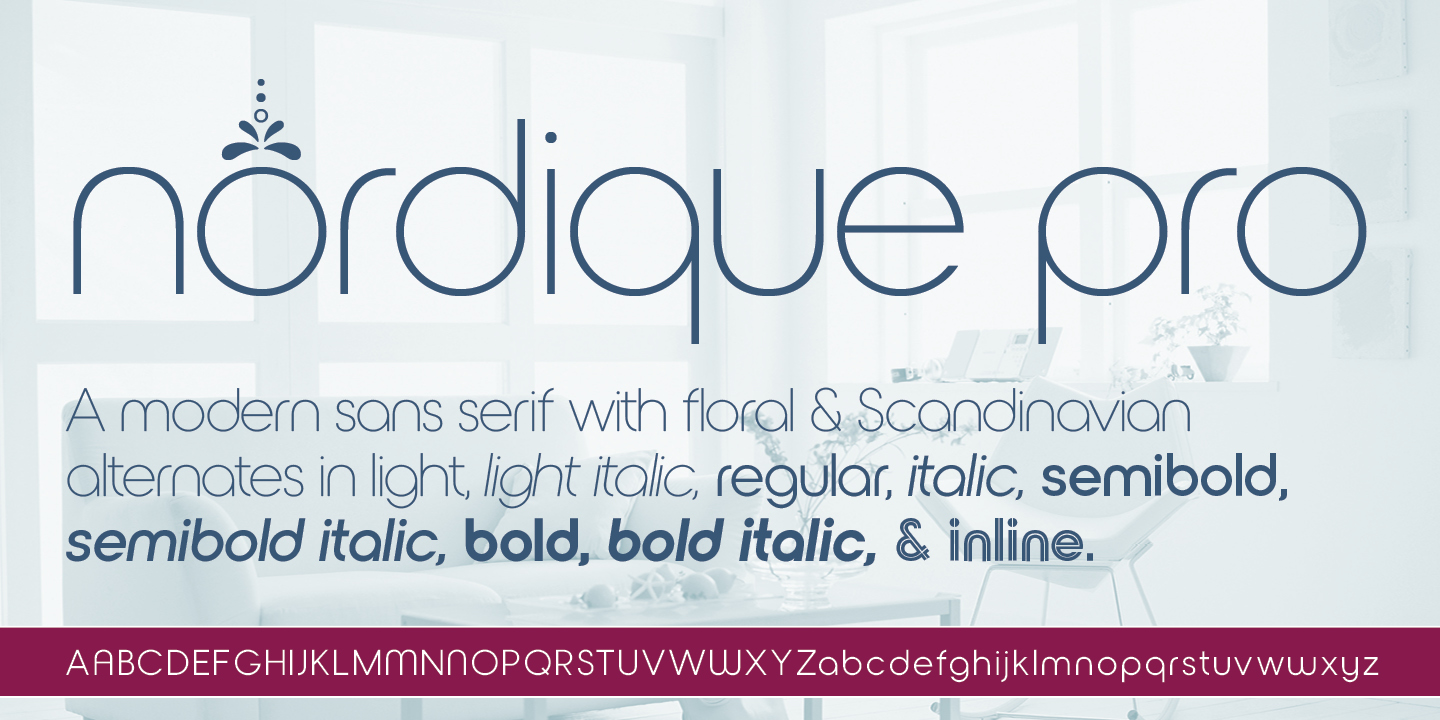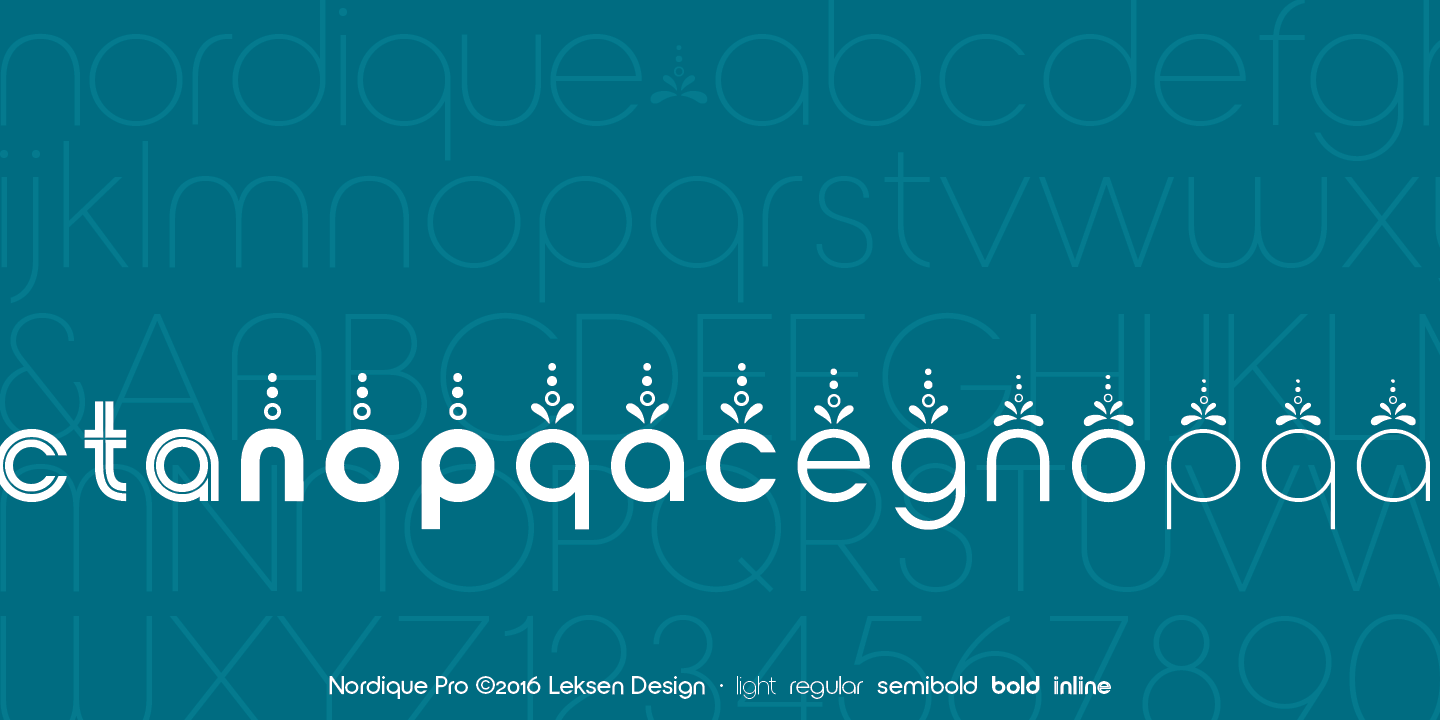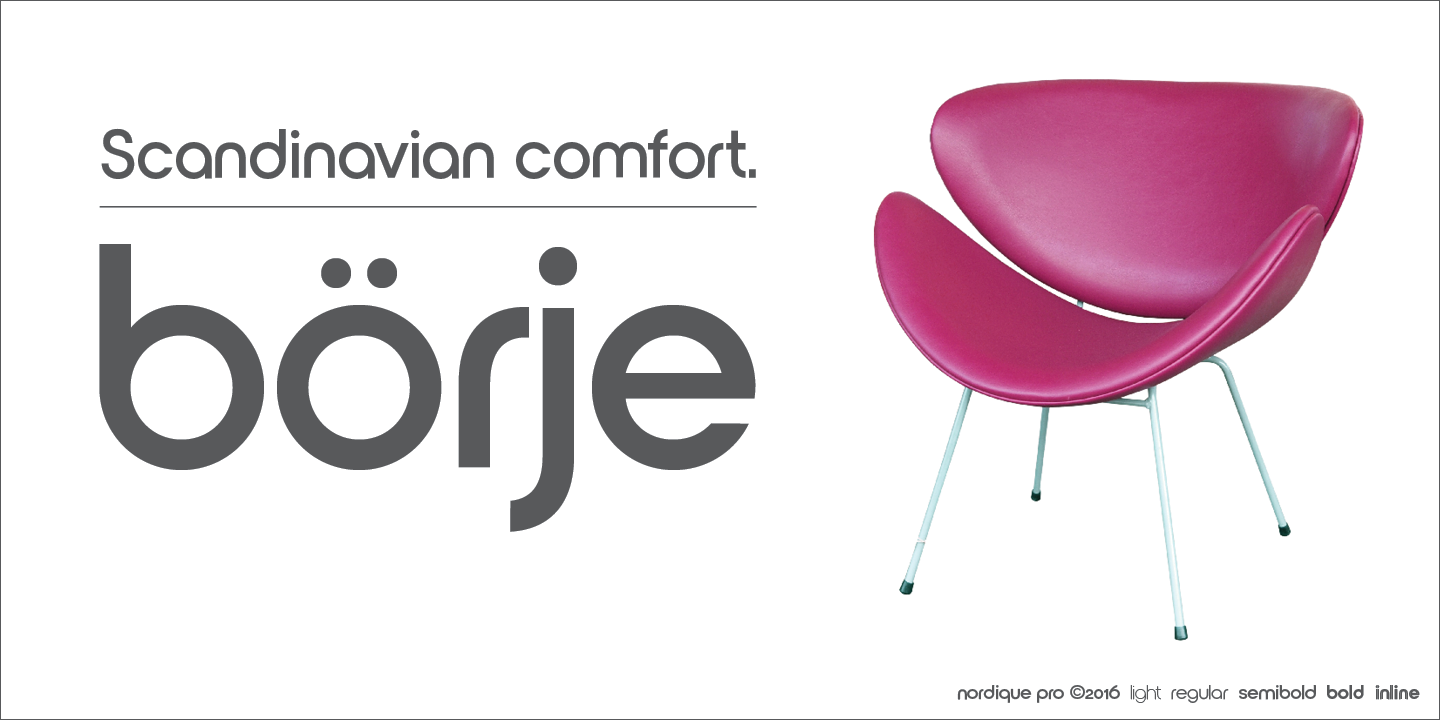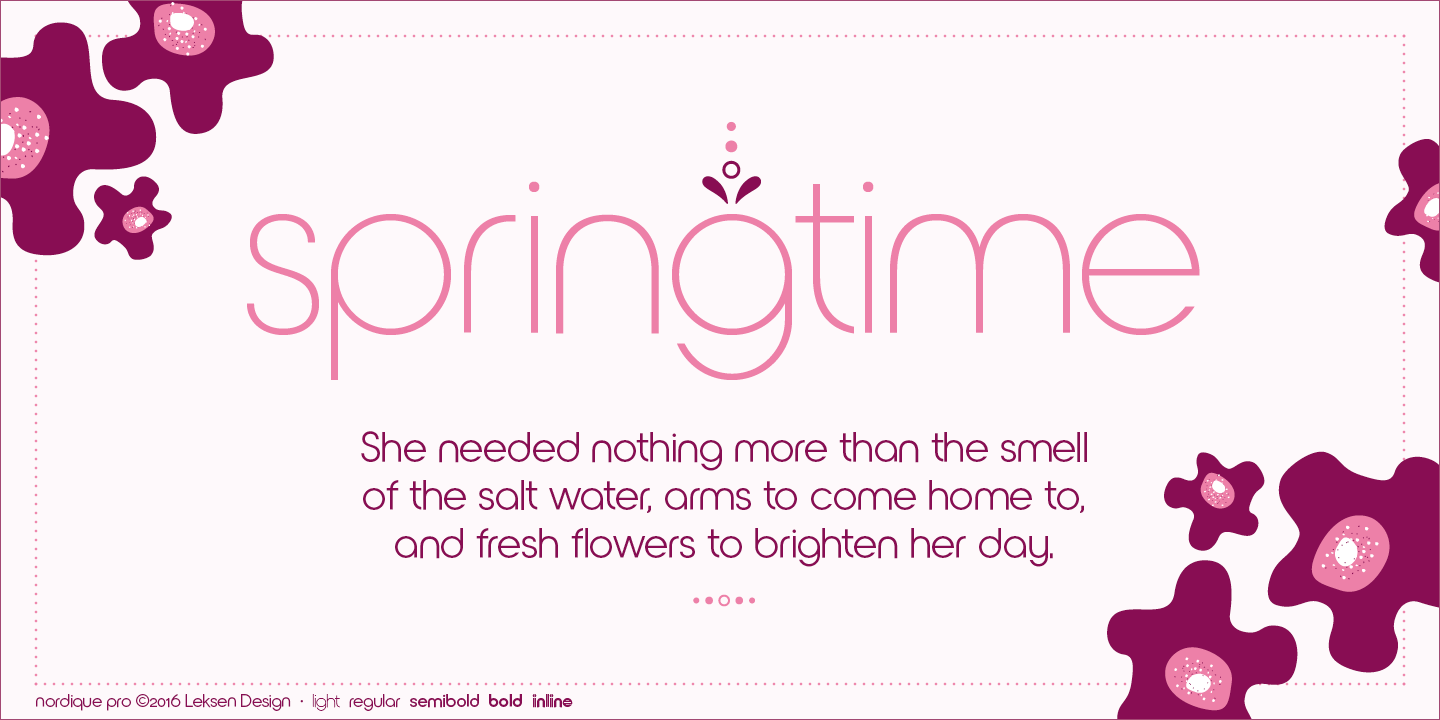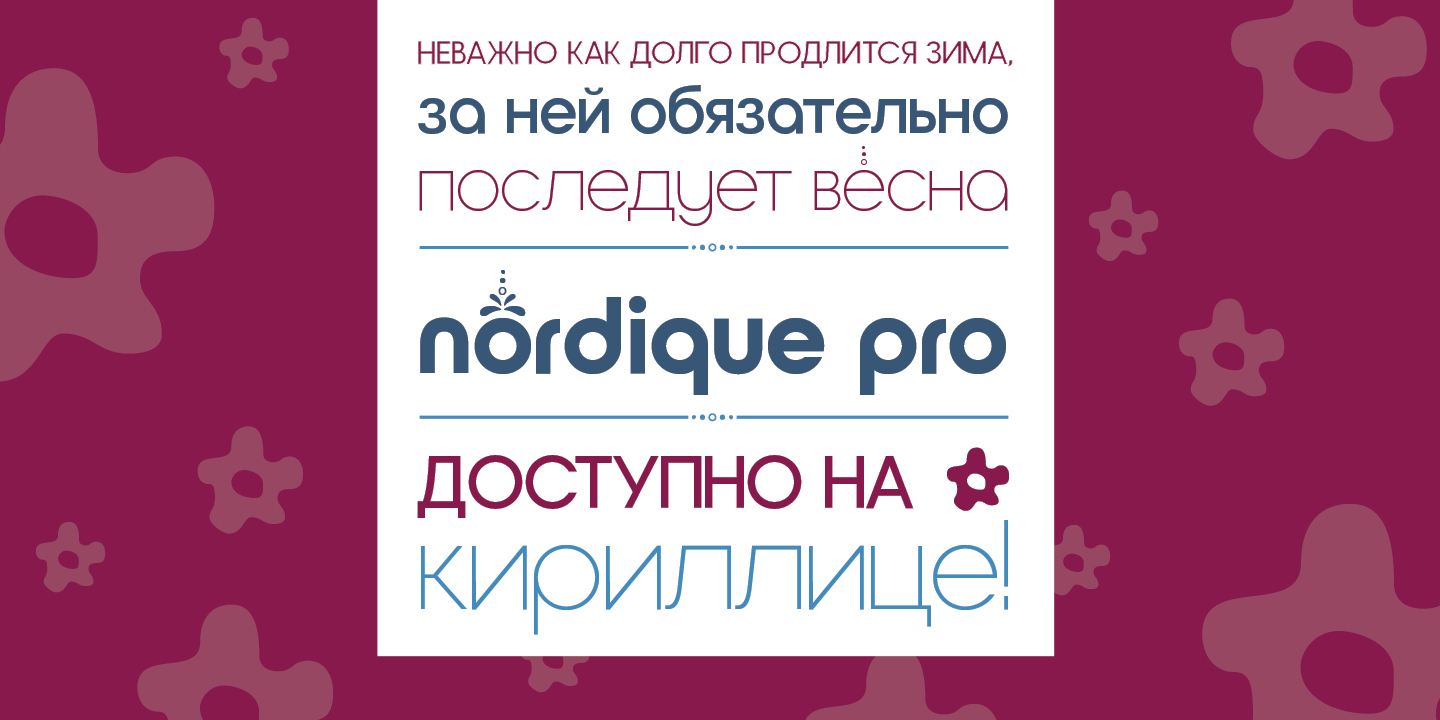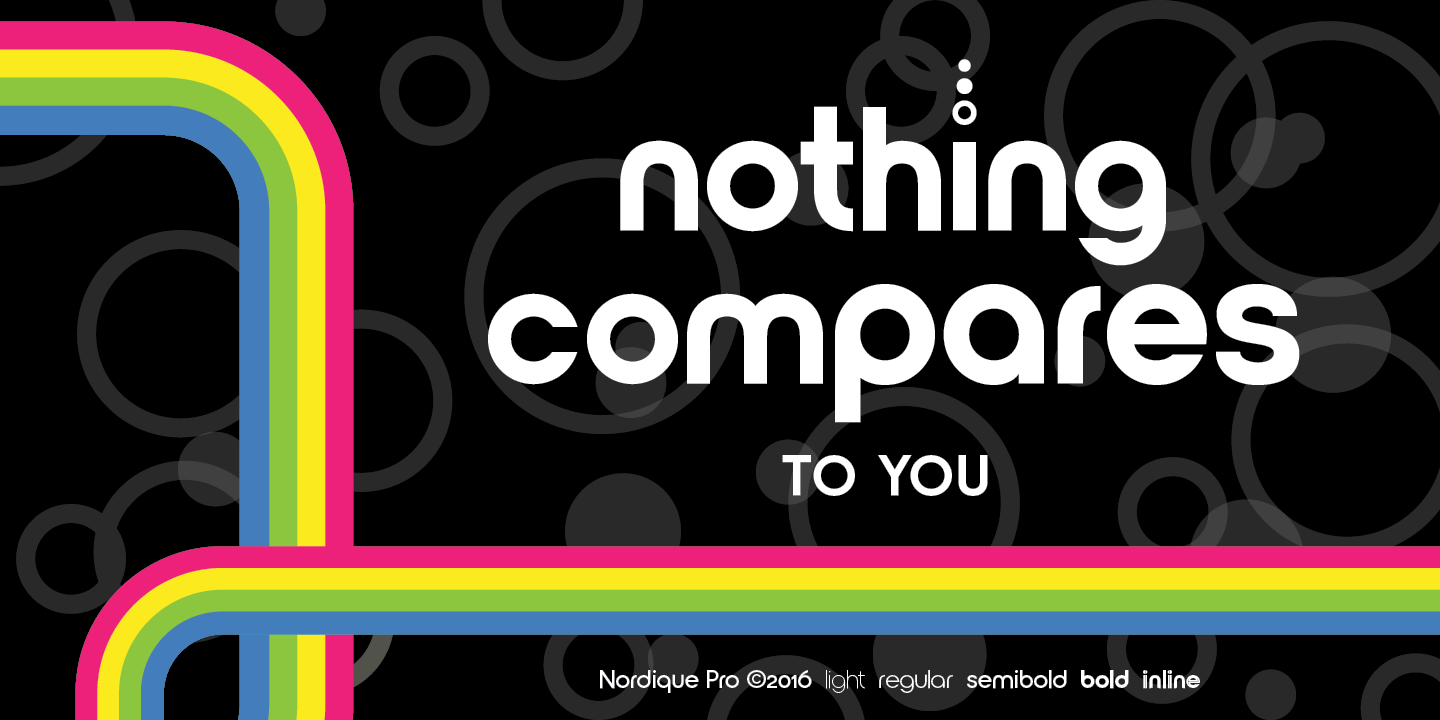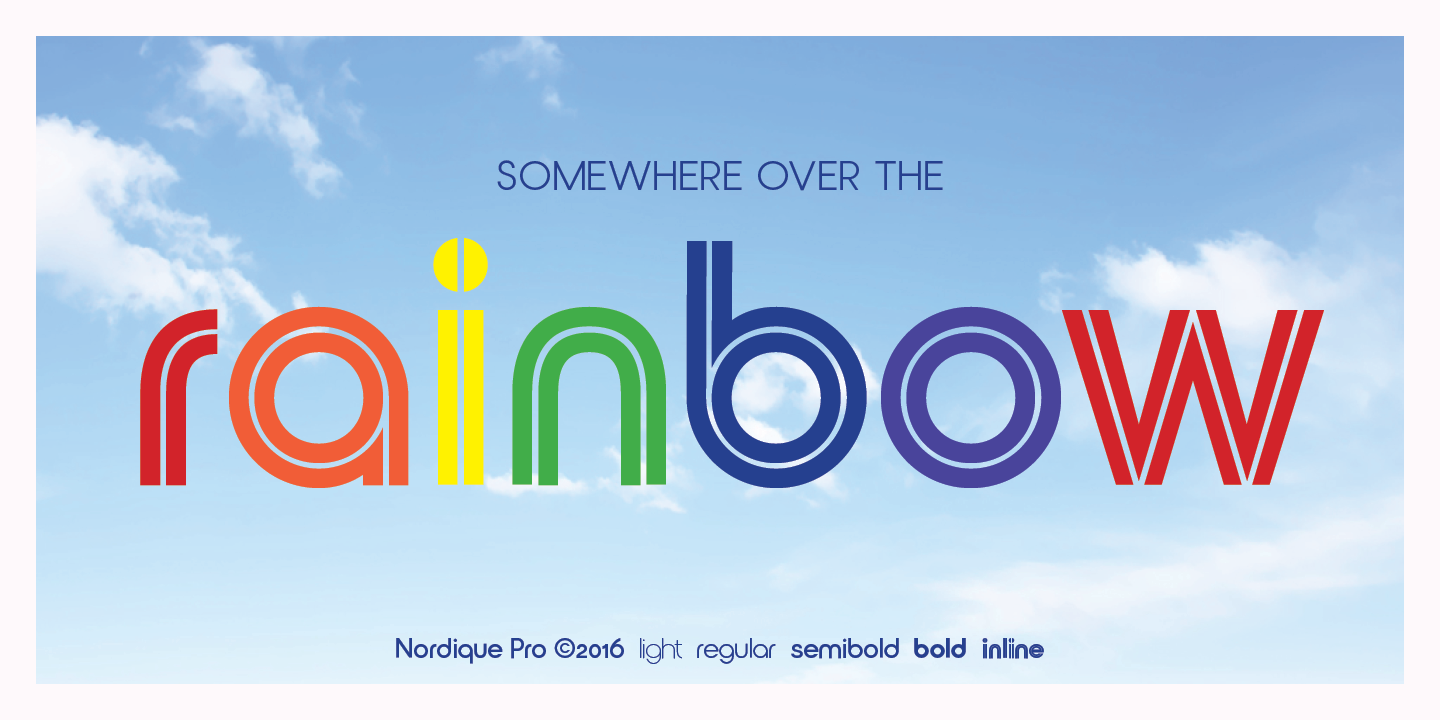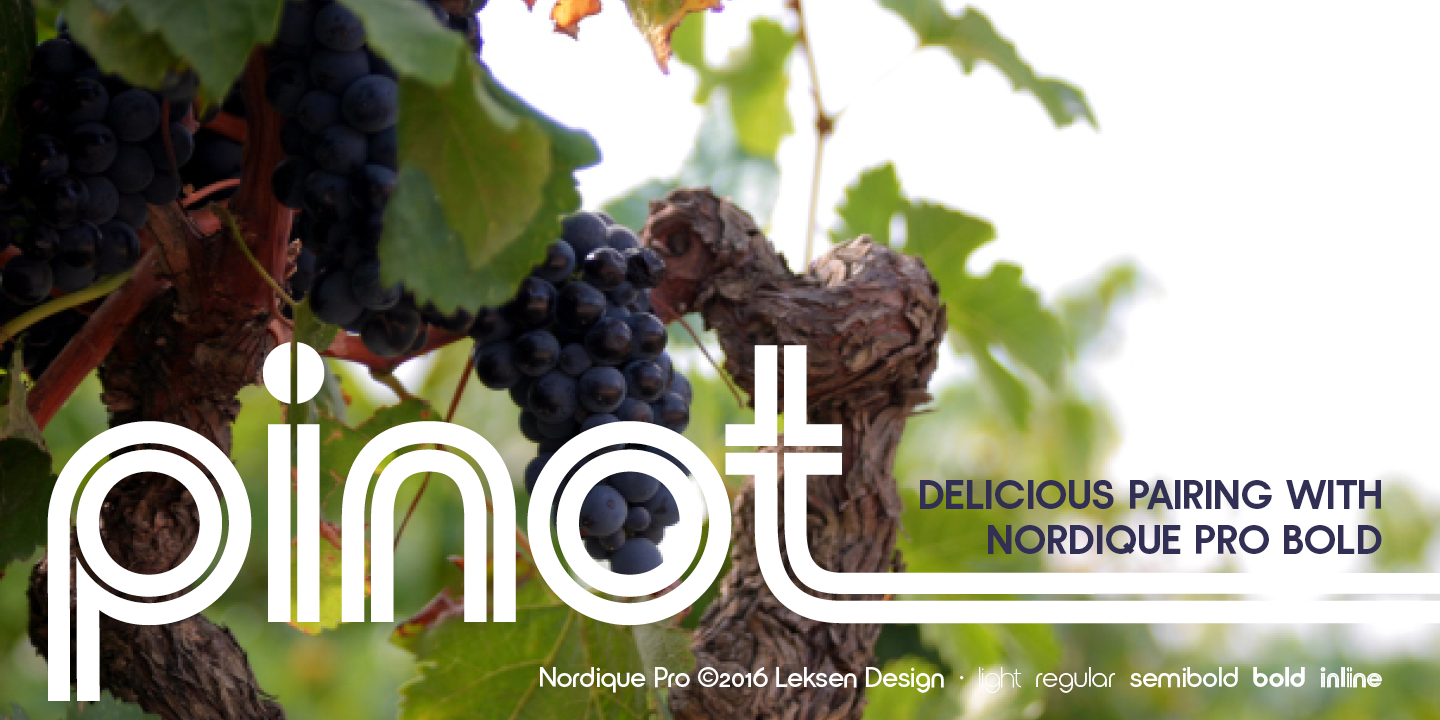
Nordique Pro
InlineInspired by her Swedish and Norwegian heritage, Andrea Leksen created this modern geometric sans serif reminiscent of Scandinavian design and typography. With its tall x-height, Nordique will be best showcased at large sizes, in headlines and other display uses. Apart from the Inline version, each font contains over 50 ornaments, swashes, alternates and borders to play with—a modern take on the traditional rosemåling and kurbits painting styles. See some of the creative and beautiful ways Nordique Pro can be used at https://www.youtube.com/watch?v=fgafFVoZAD8